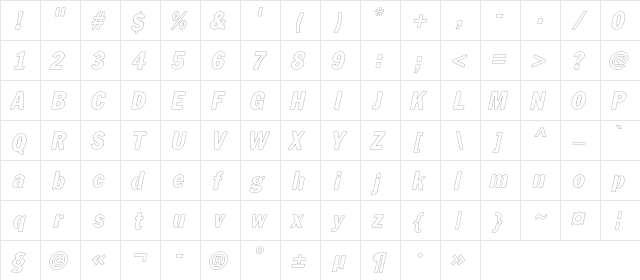
FagotCondOutlineC Italic
Design Context for FagotCondOutlineC Typeface
FagotCondOutlineC is built around its visual character rather than neutral utility — its distinctive forms are designed to make an impression at display sizes. Its italic angle brings a sense of urgency and motion to the letterforms.
Font Pairing: Pair with a clean neutral sans-serif for body copy to let FagotCondOutlineC's character lead without overwhelming the composition.
Pro Tip: Treat FagotCondOutlineC as the centrepiece of your typographic hierarchy. One strong heading set in a decorative face can carry an entire layout.